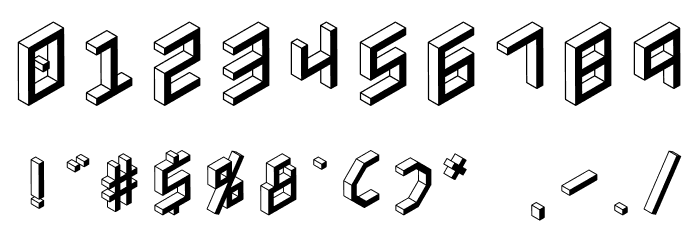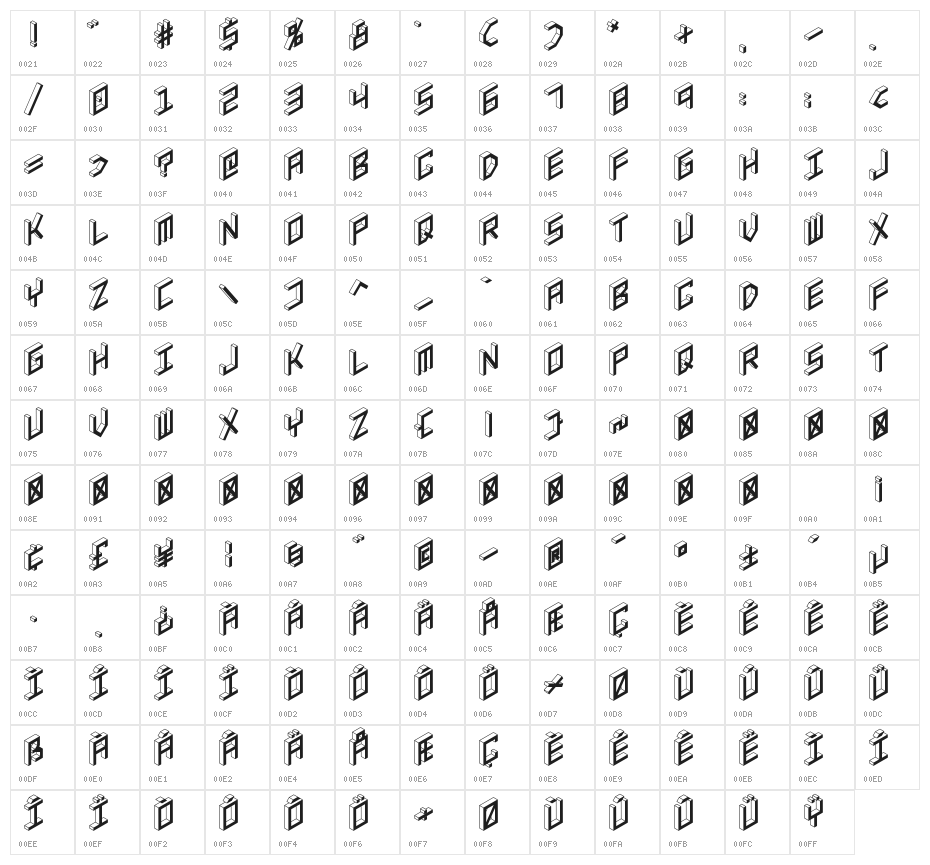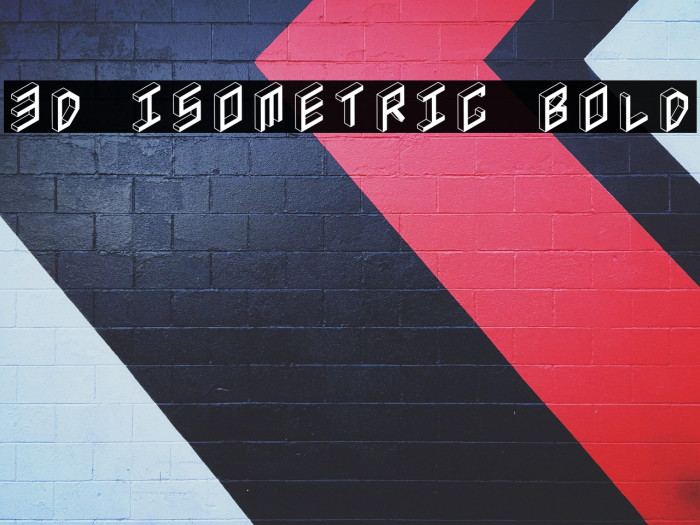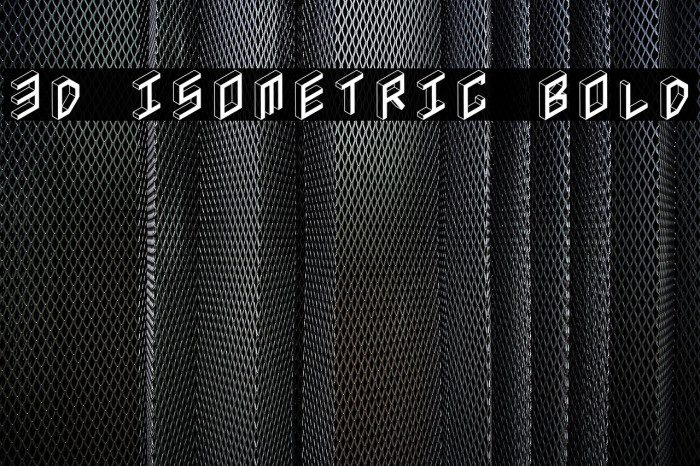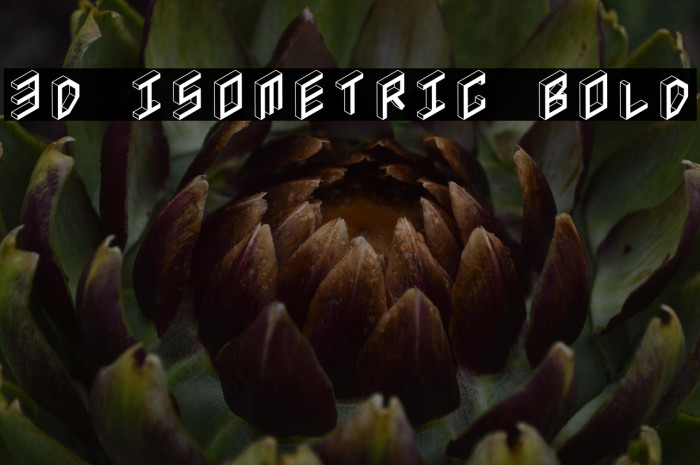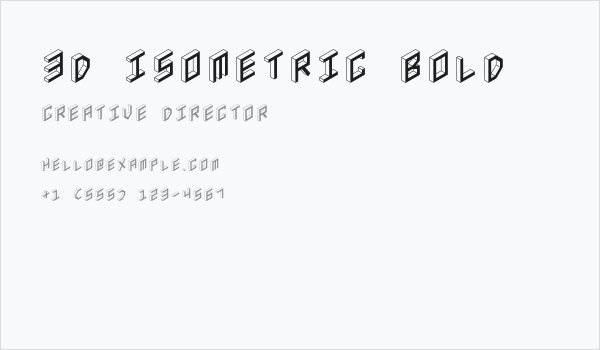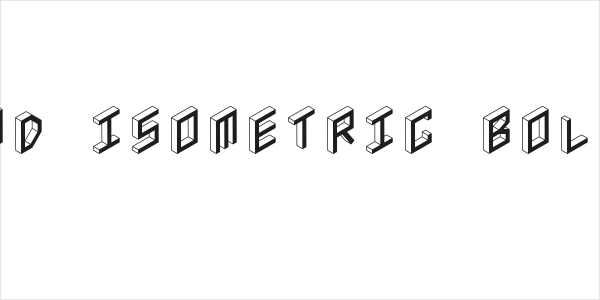
3D Isometric Bold Font
3D Isometric Bold Description
This font features a bold, three-dimensional isometric design that gives each character a striking, geometric appearance. The letters are constructed with clean lines and sharp angles, creating a sense of depth and perspective. The 3D effect is achieved through the use of consistent shadowing and line work, making the characters appear as if they are popping off the page. This style is both modern and playful, offering a unique visual impact that is perfect for eye-catching designs. The uppercase and lowercase letters maintain a uniform structure, while the numbers and special characters are crafted with the same attention to detail, ensuring a cohesive look across all elements.